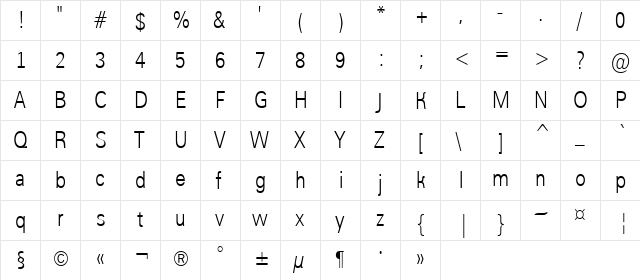
a_GroticLtNr Normal
Design Context for a_GroticLtNr Typeface
a_GroticLtNr is a composed and adaptable typeface that performs quietly and consistently across a wide range of design contexts.